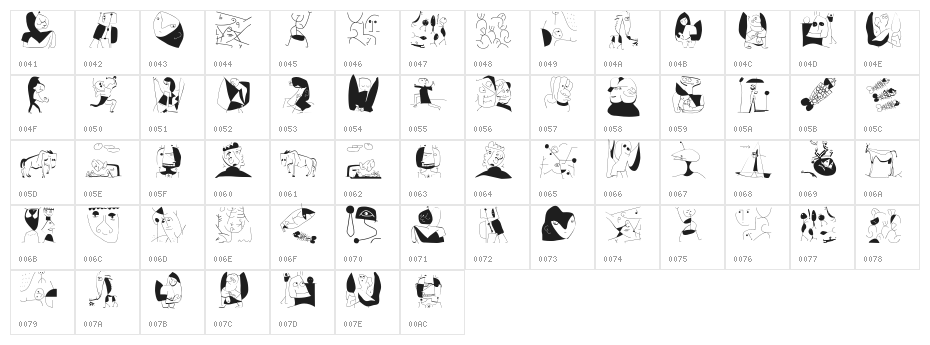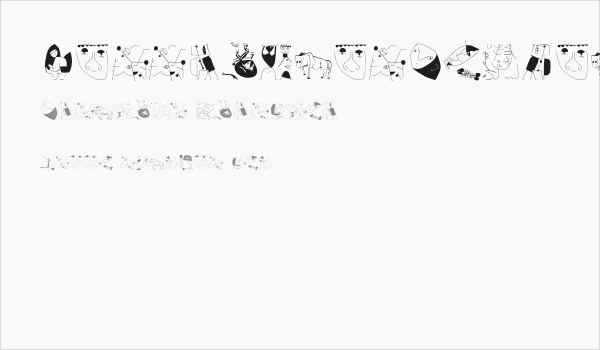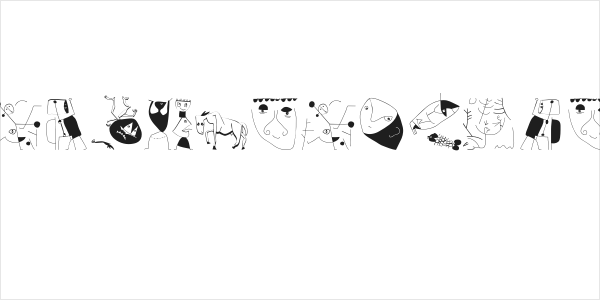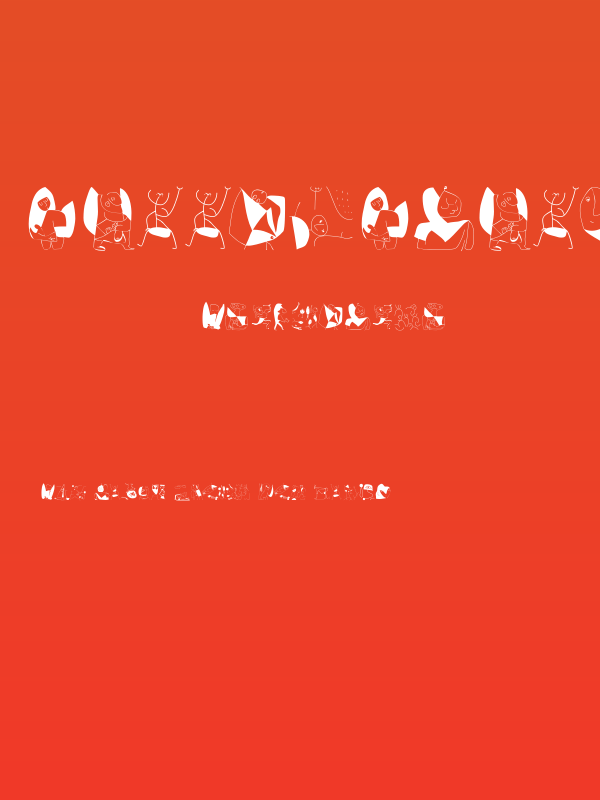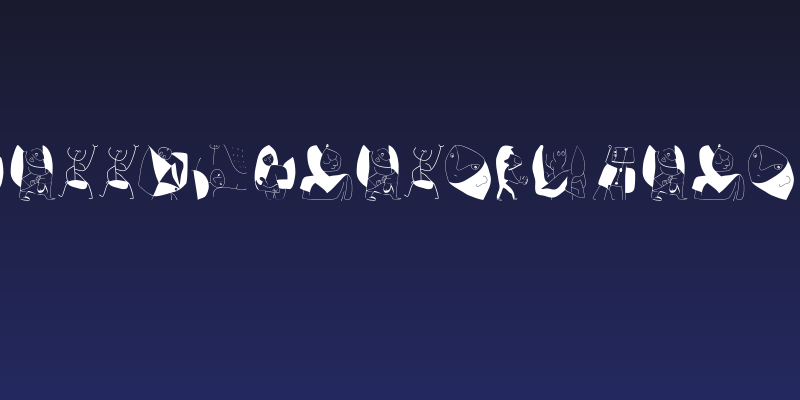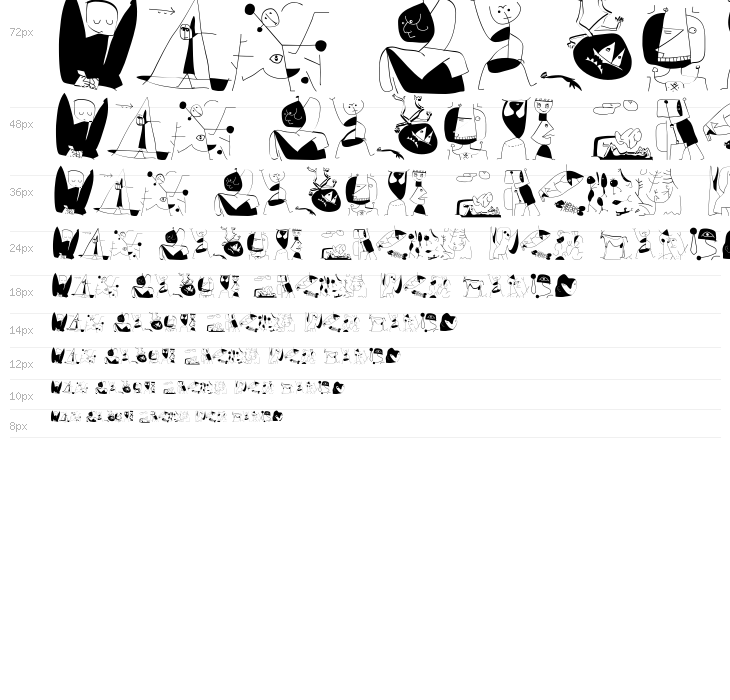
KleerikaleConBlack Font
KleerikaleConBlack Description
This is a highly decorative and artistic font where each character is represented by a unique abstract illustration. The design is playful and imaginative, incorporating elements of surrealism and modern art. Each letter and symbol is crafted with intricate details, making it more of an art piece than a traditional font. The characters are composed of various shapes and lines, creating a whimsical and dynamic visual experience. This font is not suitable for body text due to its complexity but serves as an excellent choice for creative projects that require a distinctive and artistic touch.
| Use Case | Logos, Posters, Artistic Projects |
| Proposed Projects | Ideal for art projects, creative posters, album covers, and any design work that benefits from a unique and artistic flair. |